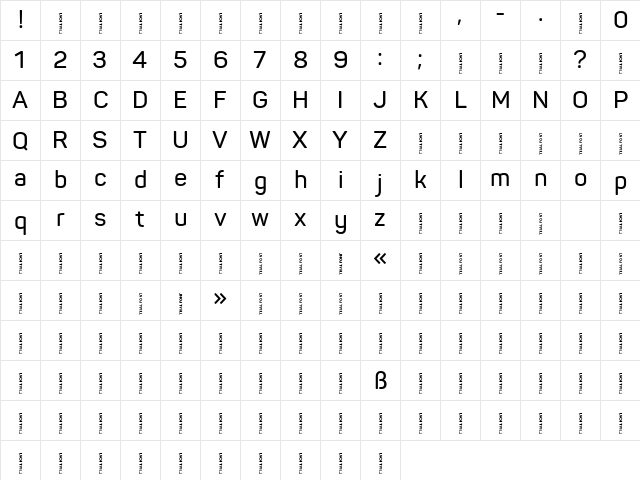
Complete Panton-Trial SemiBold Regular glyph index. Displaying only characters natively supported by Panton-Trial SemiBold Regular font.
Panton-Trial SemiBold is a composed and adaptable typeface that performs quietly and consistently across a wide range of design contexts. Its bold stroke weight gives it real presence on the page.